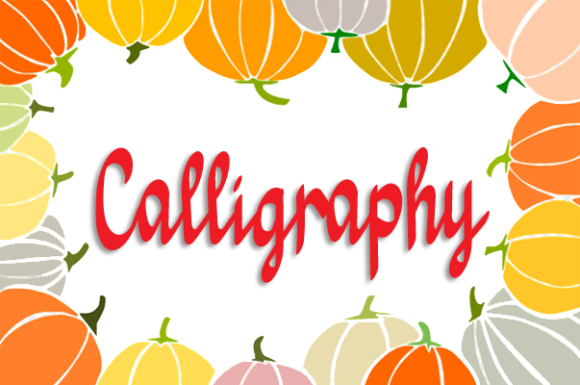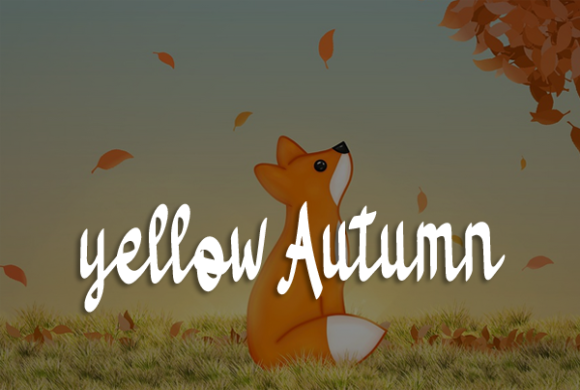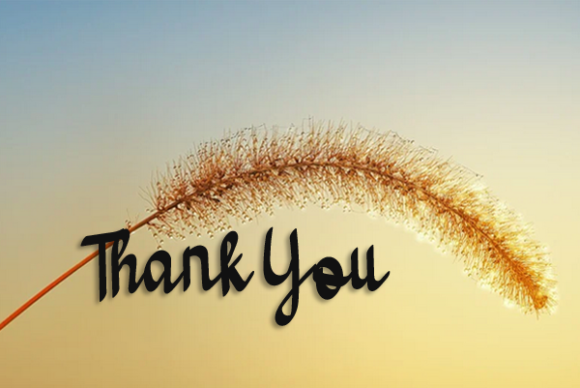
Jasmine Font
About Jasmine Font
Jasmine is a dainty and flowing handwritten font. Sweet and joyful, this font will be ideal for writing wedding invitations, cards, or any other design that may need a romantic, personalized touch!